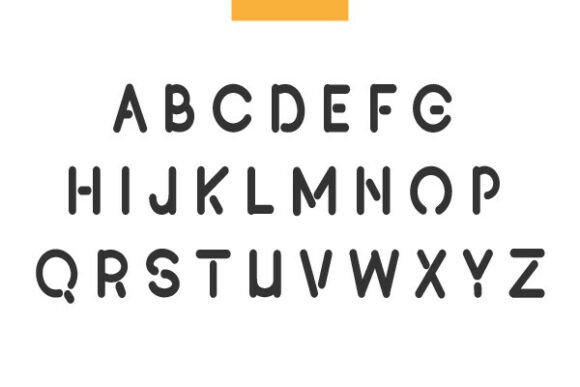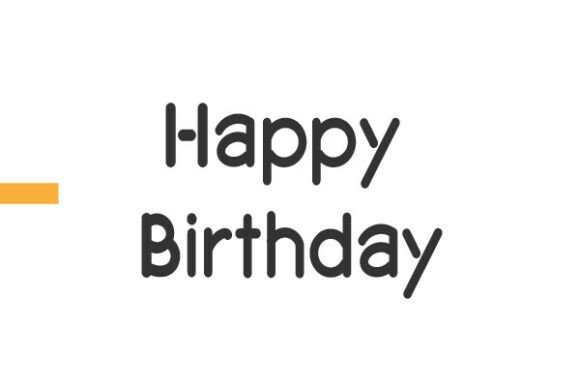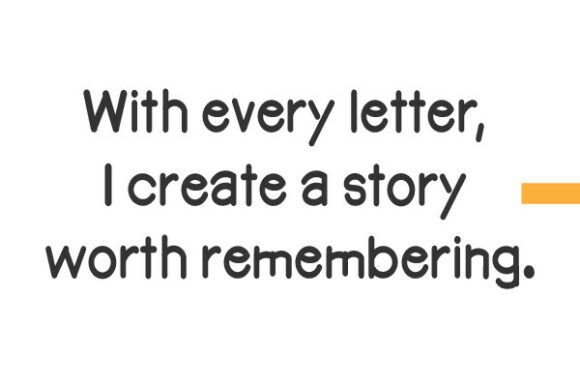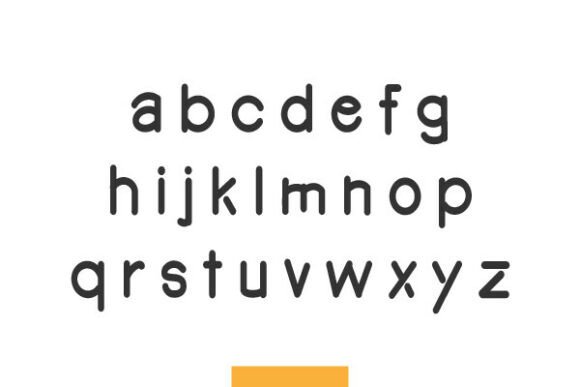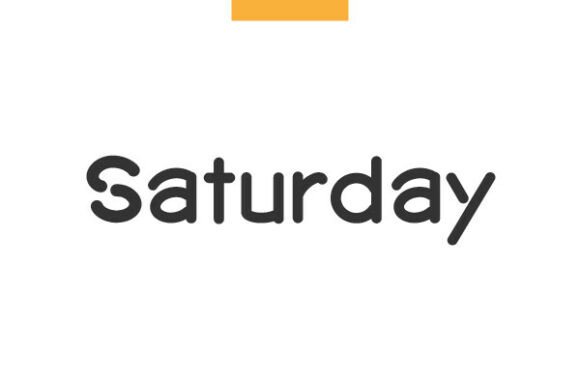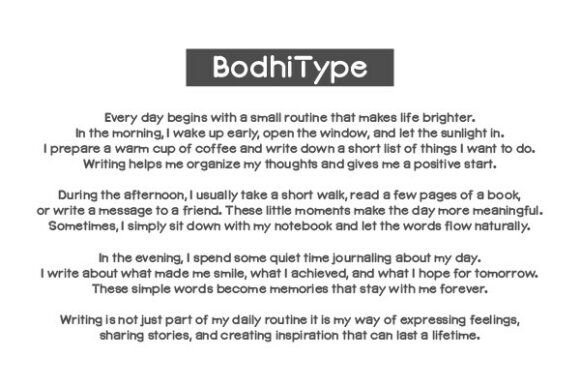
Discover BodhiType: The Ultimate Font for Creative Expression
In the world of typography, a font can make all the difference in how a message is conveyed. BodhiType, a thoughtfully designed typeface, is making waves with its perfect blend of warmth, creativity, and modern elegance. This versatile font is designed to elevate your design projects, offering a unique combination of smooth curves, clean lines, and a touch of playful charm.
The Characteristics of BodhiType
BodhiType boasts a range of characteristics that make it an ideal choice for designers and crafters. Its bold presence and light elegance allow it to adapt beautifully to a wide range of creative needs. Whether you’re working on a digital platform or a print project, BodhiType is the perfect font to add personality, sophistication, and a contemporary flair to your work.
BodhiType’s versatility makes it suitable for a wide range of design applications. Here are some of the perfect use cases for this amazing font:
- Branding & Logo Design: Create a lasting impression with BodhiType’s unique and memorable letterforms. Its bold and elegant style makes it perfect for logos, business cards, and brand identity.
- Social Media Content: Stand out in the crowded social media landscape with BodhiType’s playful and modern charm. Use it to create engaging posts, captions, and stories that capture your audience’s attention.
- Posters & Flyers: Make a statement with BodhiType’s bold and eye-catching style. Its clean lines and smooth curves ensure that your message is conveyed clearly and effectively.
- Invitations & Greeting Cards: Add a touch of elegance and sophistication to your invitations and greeting cards with BodhiType. Its light and airy feel makes it perfect for special occasions.
- Packaging & Product Design: Elevate your product design with BodhiType’s modern and creative flair. Use it to create labels, packaging, and product descriptions that showcase your brand’s personality.
Why Choose BodhiType?
BodhiType offers a range of benefits that make it an attractive choice for designers and crafters. Here are some reasons why you should consider using BodhiType in your next project:
- Unique and Memorable: BodhiType’s distinctive letterforms ensure that your design stands out from the crowd.
- Versatile: BodhiType adapts beautifully to a wide range of creative needs, making it perfect for various design applications.
- Easy to Read: BodhiType’s clean lines and smooth curves ensure that your message is conveyed clearly and effectively.
- Modern and Elegant: BodhiType’s modern charm and elegant style make it perfect for designs that require a touch of sophistication.
Tips for Using BodhiType Effectively
To get the most out of BodhiType, here are some tips to keep in mind:
- Experiment with Font Sizes: BodhiType’s versatility allows it to shine at various font sizes. Experiment with different sizes to find the perfect fit for your design.
- Play with Color: BodhiType’s modern charm is elevated by bold and vibrant colors. Don’t be afraid to experiment with different color schemes to find the perfect match.
- Mix and Match: BodhiType pairs well with other fonts. Experiment with different font combinations to create a unique and memorable design.
BodhiType is a game-changing font that offers a unique combination of warmth, creativity, and modern elegance. Its versatility, readability, and sophistication make it perfect for a wide range of design applications. Whether you’re a designer, crafter, or simply someone who appreciates great typography, BodhiType is an excellent choice for elevating your visual storytelling and making your designs unforgettable.